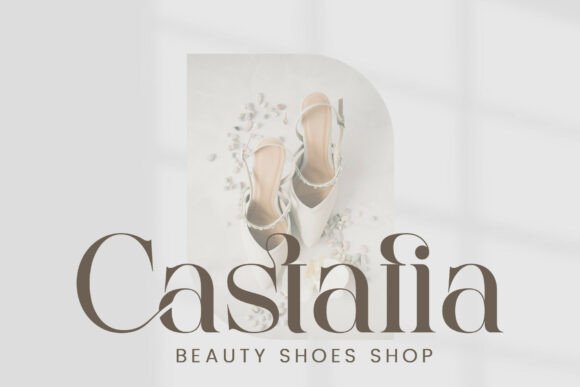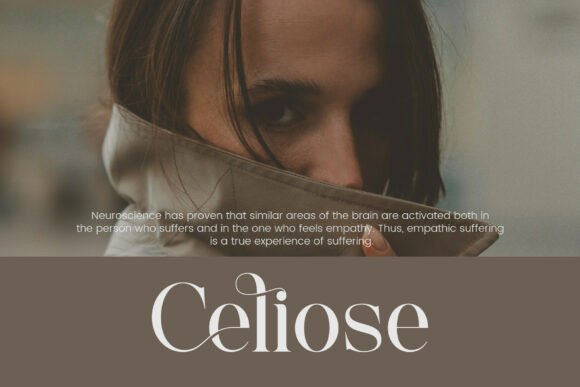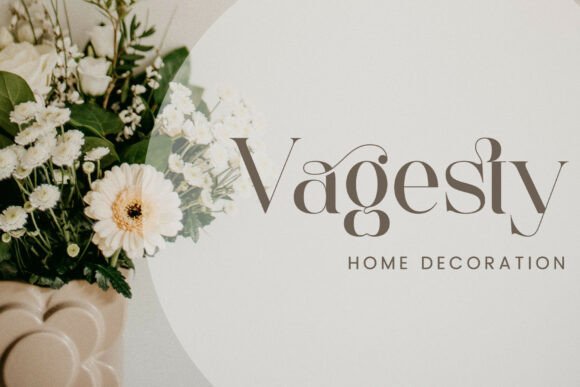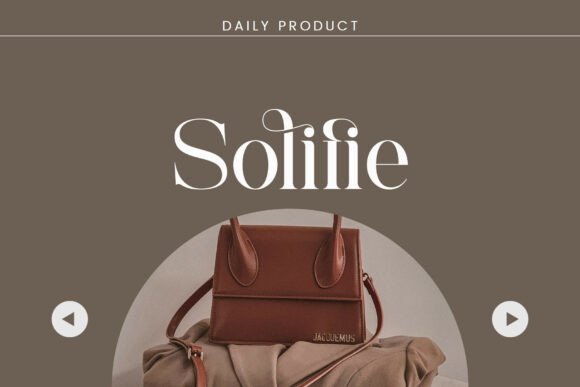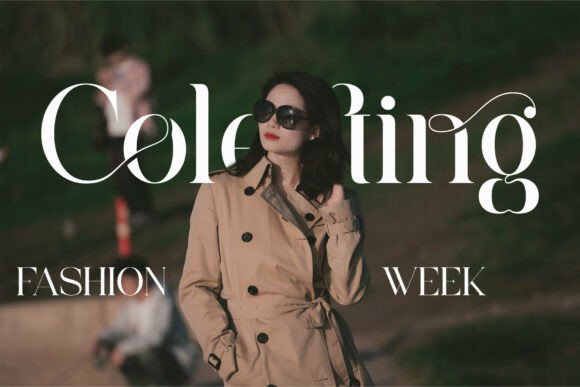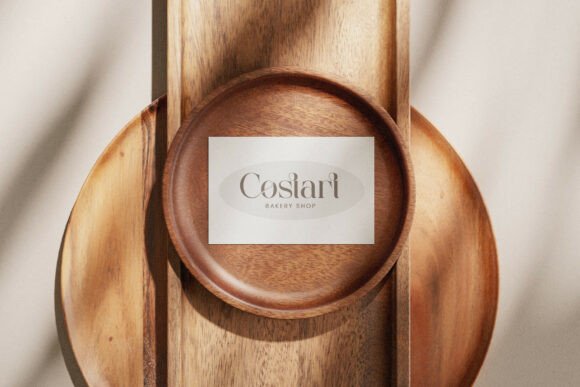
Introducing Colgan Font: The Ultimate Stylish Ligature Typeface for Modern Designers
In the world of typography, a font can make all the difference in creating a lasting impression. For designers and crafters, finding the perfect typeface that embodies style, simplicity, and versatility can be a daunting task. However, look no further than the Colgan Font, a stunning ligature typeface inspired by the famous minimalist logo. In this article, we’ll dive into the world of Colgan Font, exploring its features, uses, and benefits for designers and crafters alike.
The Inspiration Behind Colgan Font
The Colgan Font draws its inspiration from the iconic minimalist logo, renowned for its clean lines, simplicity, and elegance. The logo’s creator, Colgan, aimed to craft a visual identity that exuded sophistication and refinement. The Colgan Font takes this timeless design and transforms it into a versatile typeface, perfect for a wide range of design applications.
Key Features of Colgan Font
So, what makes Colgan Font stand out from the rest? Here are some of its key features:
- Stylish Ligatures: Colgan Font boasts beautiful ligatures, carefully crafted to create a seamless and stylish flow between letters.
- Minimalist Design: The font’s minimalist design ensures that your designs look clean, elegant, and sophisticated.
- High Versatility: Colgan Font is perfect for a wide range of design applications, from templates and brochures to videos, advertising, branding, logos, and more.
- Easy to Read: The font’s clear and legible design makes it easy to read, even at smaller font sizes.
Uses of Colgan Font
Colgan Font is an incredibly versatile typeface, suitable for various design projects. Here are some of the ways you can use Colgan Font:
- Templates: Create stunning templates for presentations, reports, and other documents.
- Brochures: Design eye-catching brochures that showcase your products or services.
- Videos: Use Colgan Font in your video titles, subtitles, and lower thirds for a professional look.
- Advertising: Create effective advertisements that grab attention and communicate your message.
- Branding: Establish a strong brand identity with Colgan Font, perfect for logos, business cards, and letterheads.
Benefits of Using Colgan Font
By choosing Colgan Font for your design projects, you’ll enjoy numerous benefits, including:
- Time-Saving: Colgan Font’s stylish ligatures and minimalist design save you time and effort in creating professional-looking designs.
- Consistency: Use Colgan Font across various design projects to establish a consistent visual identity.
- Professionalism: Impress your clients and audience with high-quality designs that exude professionalism.
- Flexibility: Colgan Font’s versatility allows you to experiment with different design styles and applications.
In conclusion, Colgan Font is an exceptional stylish ligature typeface that offers designers and crafters a world of creative possibilities. Its minimalist design, high versatility, and stylish ligatures make it perfect for a wide range of design applications. Whether you’re creating templates, brochures, videos, or branding materials, Colgan Font is sure to elevate your designs to the next level. So why wait? Download Colgan Font today and experience the power of beautiful typography in your designs.